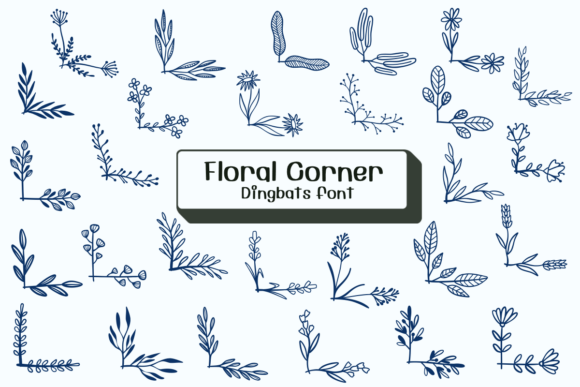
Introducing Floral Corner Font: Elevate Your Designs with Delicate Botanical Accents
Are you a designer or crafter looking for a unique and elegant way to add a touch of nature to your creative projects? Look no further than the Floral Corner Font, a stunning dingbats font featuring hand-drawn botanical corner elements. This beautiful font is perfect for adding delicate accents to your invitations, scrapbooks, logos, packaging, and stationery, bringing a graceful, nature-inspired charm to any project.
What is Floral Corner Font?
Floral Corner Font is a carefully crafted dingbats font that showcases intricate, hand-drawn botanical designs. Each element is meticulously designed to provide a charming and sophisticated look, making it an ideal choice for designers and crafters who want to add a touch of elegance to their work. The font features a wide range of corner elements, including flowers, leaves, and other botanical motifs, allowing you to create unique and eye-catching designs.
Key Features of Floral Corner Font
- Hand-drawn botanical corner elements: Each element is carefully illustrated to provide a delicate and natural look.
- Highly decorative: Add a touch of elegance and sophistication to your designs with these beautiful botanical accents.
- Perfect for various design projects: Use Floral Corner Font to enhance your invitations, scrapbooks, logos, packaging, and stationery.
Why Choose Floral Corner Font?
Floral Corner Font is a must-have for designers and crafters who want to add a touch of nature-inspired charm to their creative projects. Here are just a few reasons why:
- Unique and elegant designs: Stand out from the crowd with these beautiful, one-of-a-kind botanical corner elements.
- Versatile: Use Floral Corner Font in a variety of design projects, from invitations and scrapbooks to logos and packaging.
- Time-saving: With Floral Corner Font, you can quickly and easily add beautiful botanical accents to your designs, saving you time and effort.
Design Ideas with Floral Corner Font
Floral Corner Font is perfect for a wide range of design projects. Here are a few ideas to get you started:
- Wedding invitations: Add a touch of elegance and sophistication to your wedding invitations with Floral Corner Font.
- Scrapbooking: Use Floral Corner Font to add beautiful botanical accents to your scrapbook pages.
- Logos and branding: Create a unique and memorable logo for your business with Floral Corner Font.
- Packaging design: Add a touch of nature-inspired charm to your product packaging with Floral Corner Font.
- Stationery: Create beautiful and elegant stationery with Floral Corner Font, perfect for personal or business use.
Floral Corner Font is a beautiful and versatile dingbats font that is perfect for designers and crafters who want to add a touch of nature-inspired charm to their creative projects. With its hand-drawn botanical corner elements, ease of use, and highly decorative designs, Floral Corner Font is a must-have for anyone looking to elevate their designs. Whether you’re creating invitations, scrapbooks, logos, packaging, or stationery, Floral Corner Font is the perfect choice.